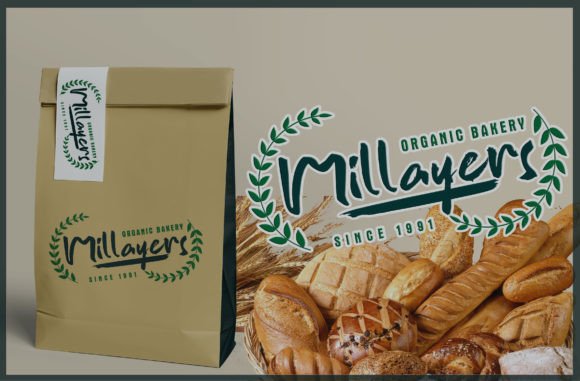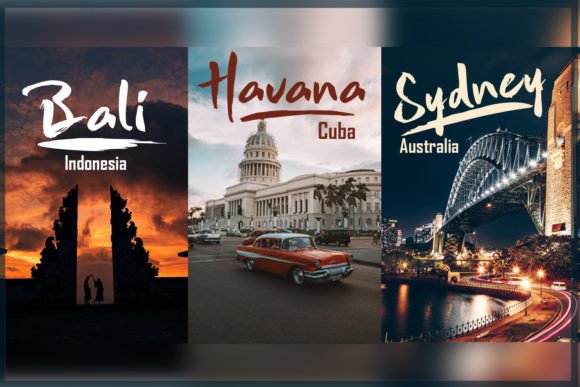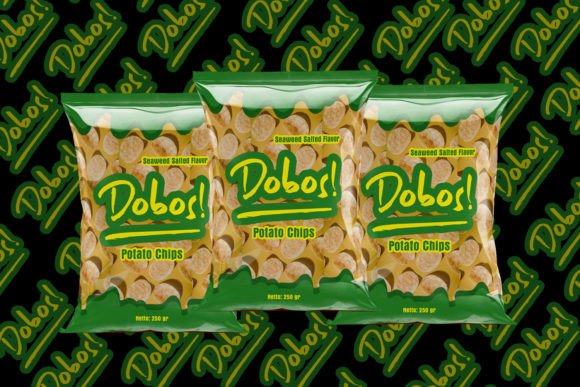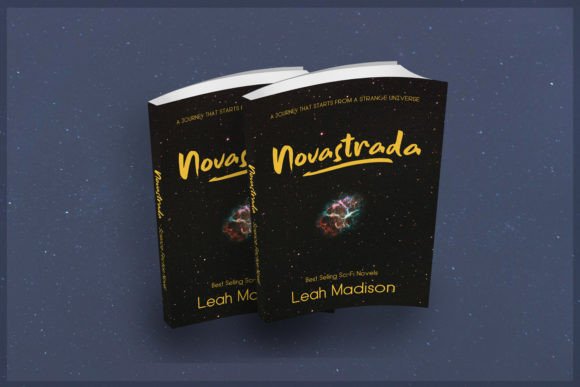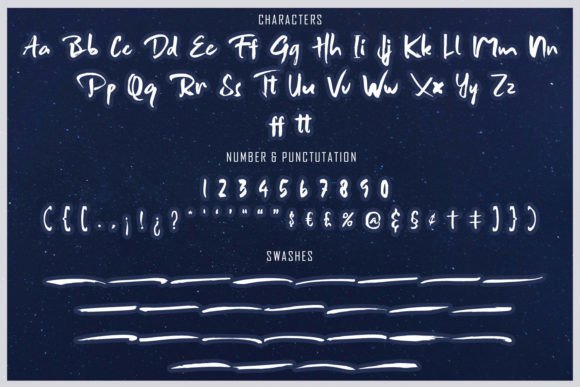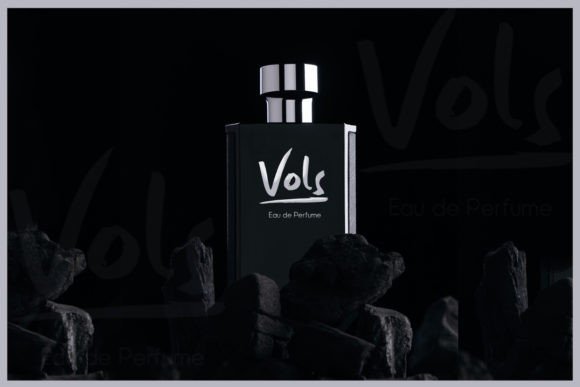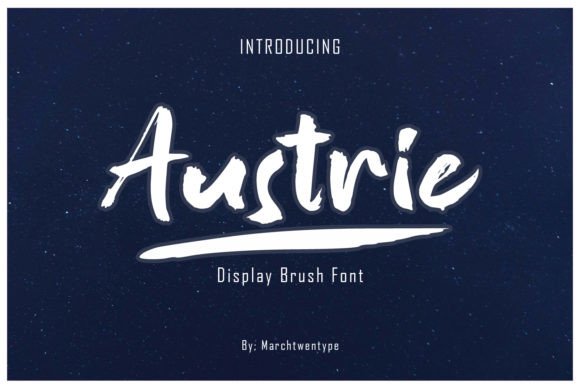
The Ultimate Guide to Austrie Font: Elevate Your Designs with this Modern Brush Display Font
I’ll never forget the time I was working on a project for a trendy boutique client, and I was struggling to find the perfect font to match their brand’s playful yet sophisticated vibe. I scoured the internet, tried out countless fonts, but nothing seemed quite right. That was until I stumbled upon Austrie Font – a modern, fun, and bold brush display font that instantly caught my attention. In this article, I’ll share my experience with Austrie Font, its features, and how to make the most of it in your designs.
A Personal Review of Austrie Font
Austrie Font has quickly become a favorite in my font library, and here’s why:
- ✨ Unique and eye-catching: Austrie Font’s bold brush strokes and modern style make it perfect for headlines, titles, and promotional materials.
- ✅ Highly versatile: This font can be used for a wide range of projects, from fashion and beauty to food and lifestyle.
- ✅ Easy to read: Despite its bold style, Austrie Font remains surprisingly legible, even at smaller sizes.
However, no font is perfect, and Austrie Font has a few minor quirks:
- 🤔 Limited use in body text: Due to its bold style, Austrie Font may not be the best choice for lengthy body text. It’s best used for headings and titles.
- ⚠️ Requires careful kerning: As with any font, kerning is crucial to ensure Austrie Font looks its best. Be prepared to adjust the spacing between letters for optimal results.
The Story Behind Austrie Font
Austrie Font was designed with the modern creative in mind. Its creator, a talented type designer, aimed to craft a font that would be both trendy and timeless. Inspired by the world of fashion and beauty, Austrie Font combines bold brush strokes with elegant lines to create a truly unique look.
| Font Name | Austrie Font |
| Author | Marchtwentype |
Q: What is Austrie Font best used for?
Austrie Font is perfect for headings, titles, and promotional materials in a variety of industries, including fashion, beauty, food, and lifestyle.
Q: Is Austrie Font easy to read?
Despite its bold style, Austrie Font remains surprisingly legible, even at smaller sizes. However, it’s best used for headings and titles rather than lengthy body text.